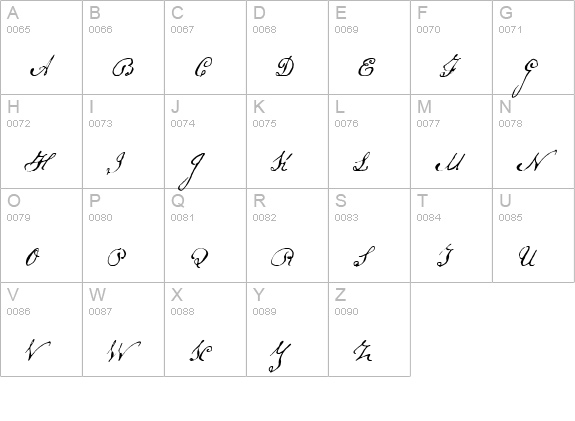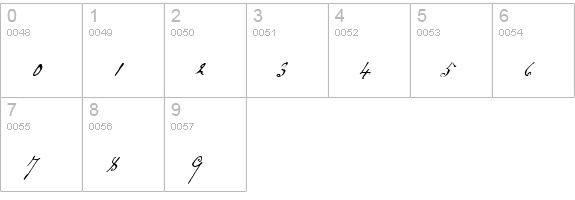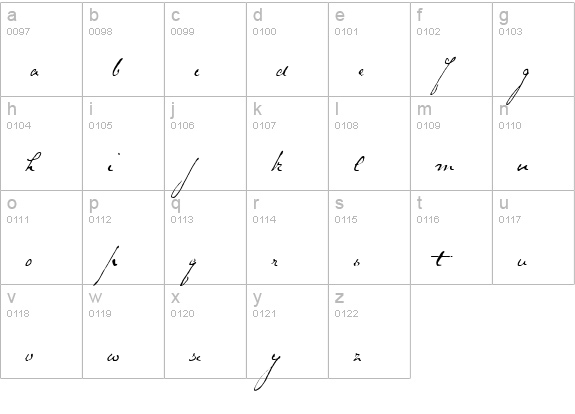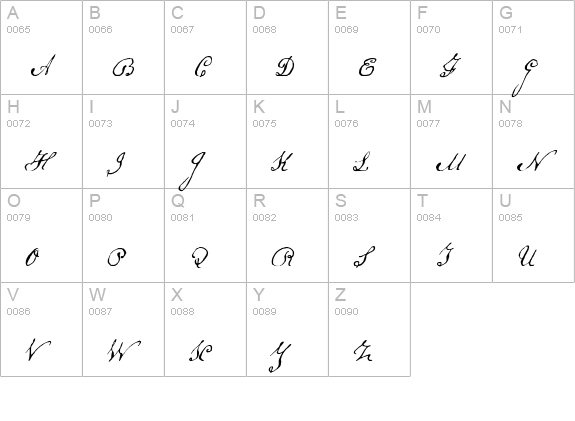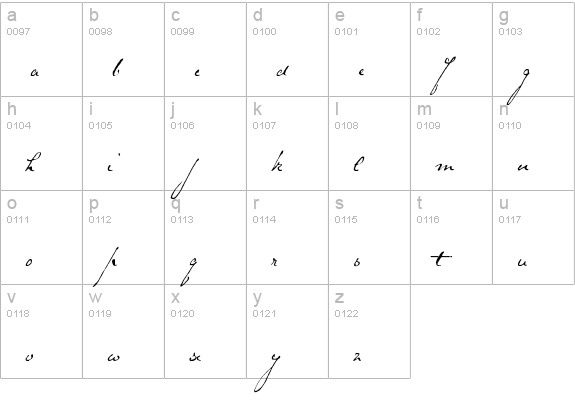
Schoon Font Details
Schoon font is a modern and elegant typeface that exudes sophistication and versatility. With its clean lines and balanced proportions, this font is perfect for a wide range of design projects, from branding and packaging to editorial and web design. What makes Schoon font truly exceptional is that it is not only visually stunning but also freely available to download at FontsMarket.com. This means that designers and creatives can access this premium-quality font without any hassle or cost. Schoon font features a comprehensive set of characters, including uppercase and lowercase letters, numerals, punctuation marks, and special symbols. Its versatility can be seen in its multiple weights, which allow for creative flexibility and a personalized touch. Whether you are designing a luxurious logo for a high-end brand, creating an eye-catching headline for a magazine spread, or crafting an elegant invitation, Schoon font is the perfect choice. Its timeless appeal and effortless legibility make it suitable for both print and digital applications. Experience the beauty and functionality of Schoon font for yourself by simply heading over to FontsMarket.com and downloading it for free. With its refined aesthetic and freely accessible nature, this font is a must-have resource for any designer or typographer looking to elevate their projects to the next level.